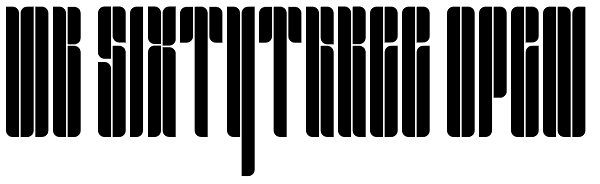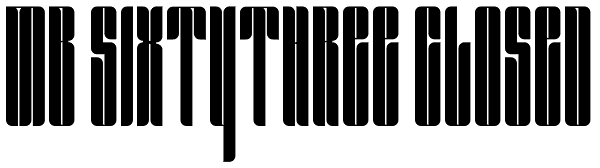
MB SIXTYTHREE
A heavy black display face with lots of retro 'cool'. Modernist to the extreme MB SIXTYTHREE oozes 'mod' culture. Great for magazines & headlines, logotypes, posters, album artwork.
MB SIXTYTHREE OPEN
MB SIXTYTHREE CLOSED